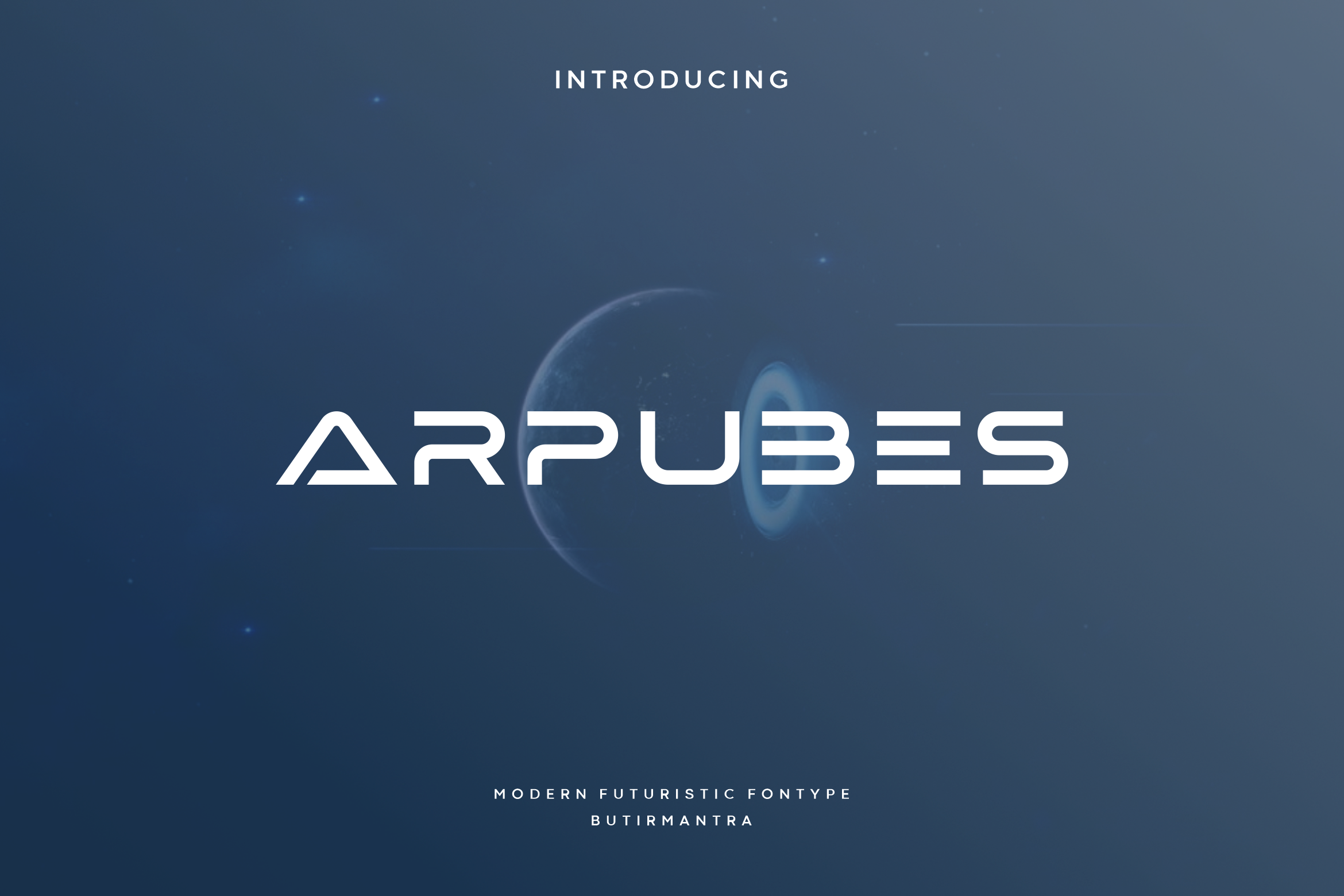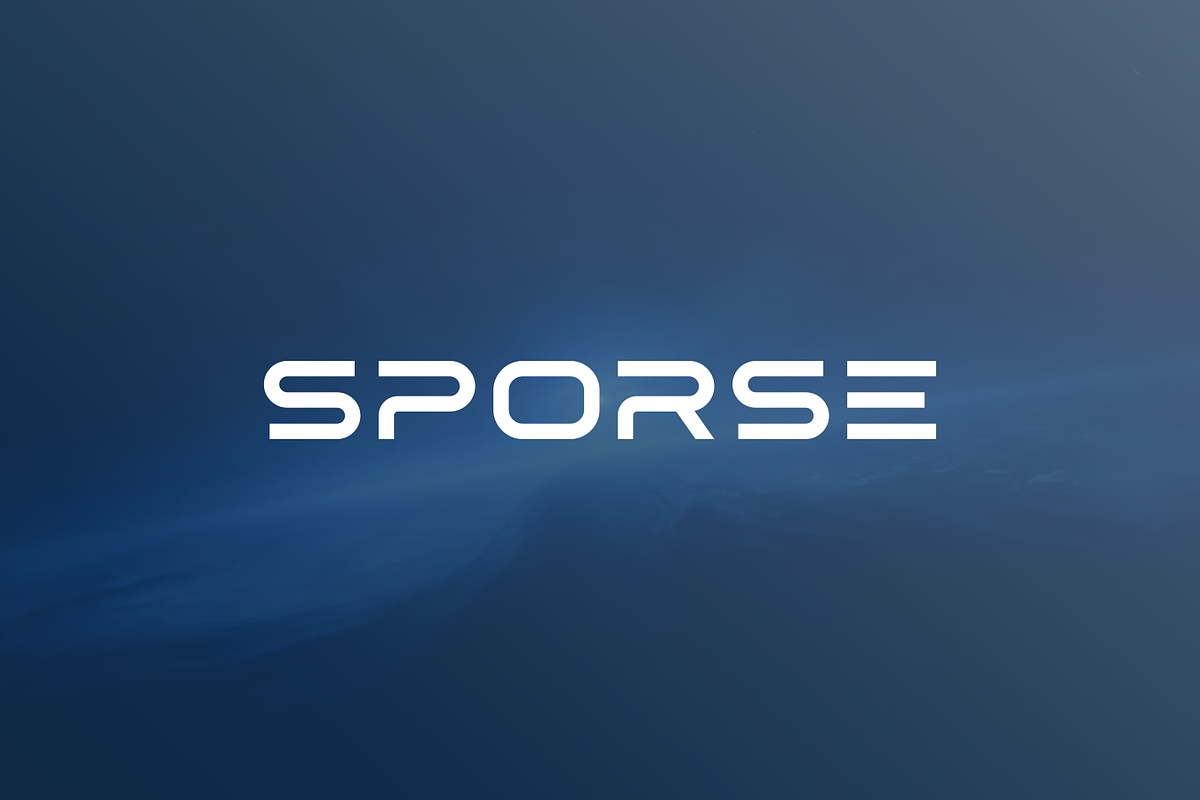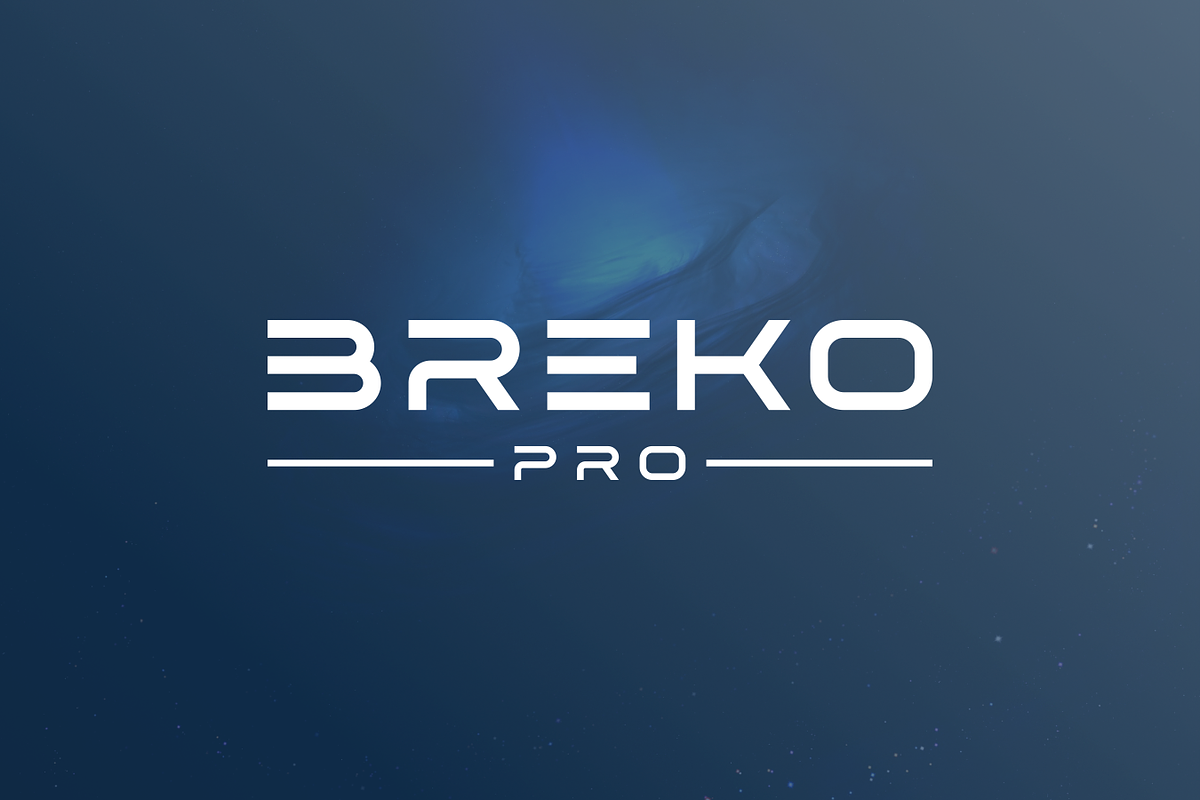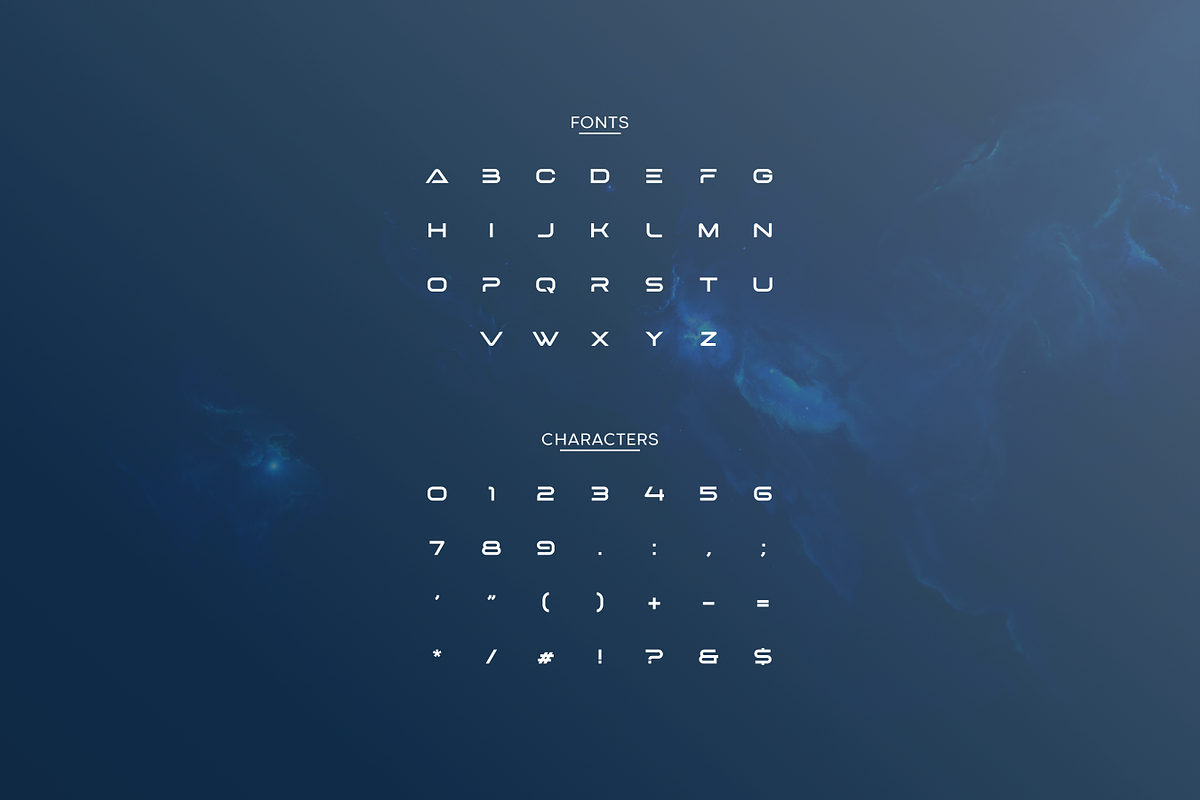
Arpubes - Modern Futuristic Typeface
Arpubes is a modern, elegant and futuristic look font. This font would be ideal for writing web designs, titles, business cards, or just about anything else that requires a unique touch. The futuristic feel is displayed more prominently so that it will look very suitable for electronic, robotic, electrical products and many products related to the future.